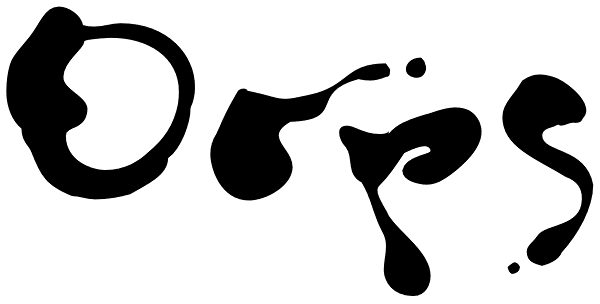
Oops
The initial idea for the Oops font, was to create graphemes, and by using them it could imitate a mark of a spilled liquid-stain. In an attempt to make the most convincing effect, those graphemes were written on glass. The final appearance of the...